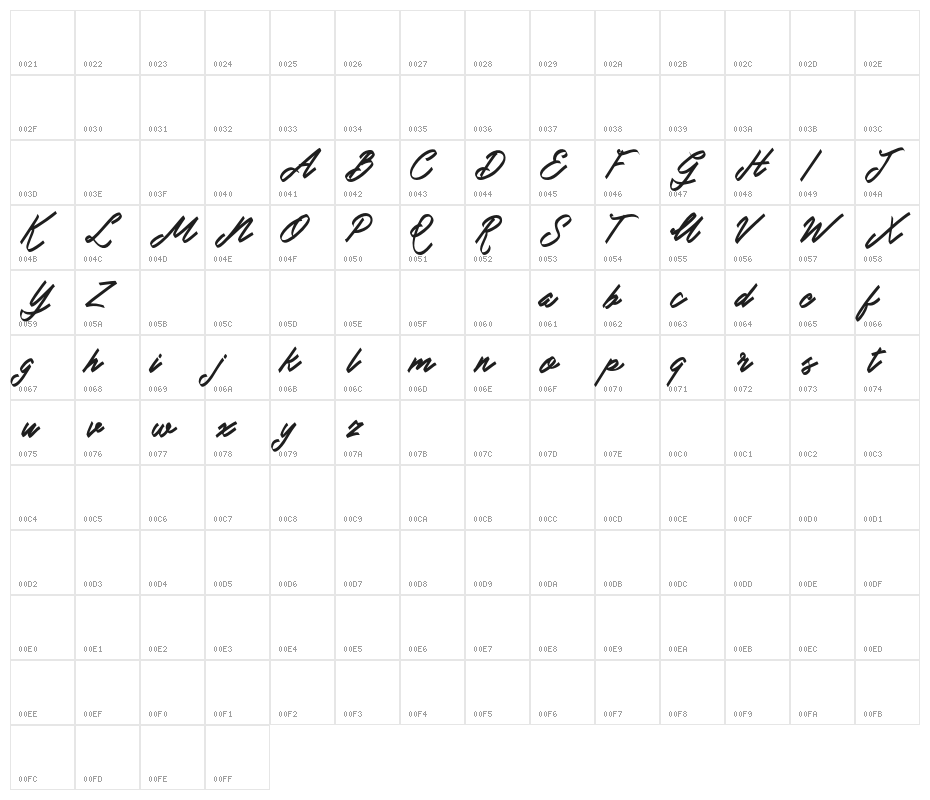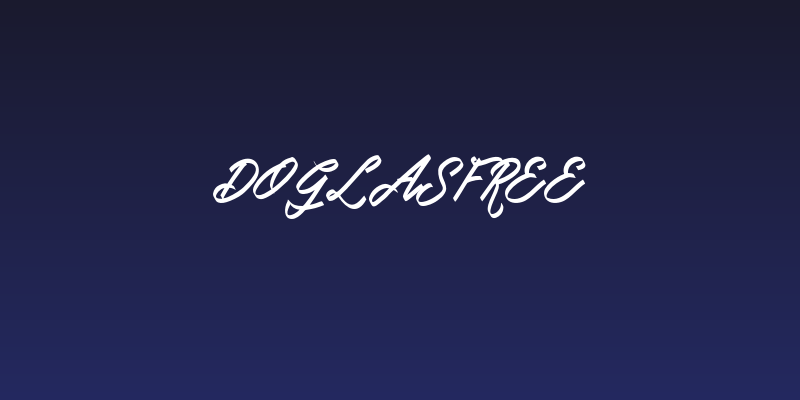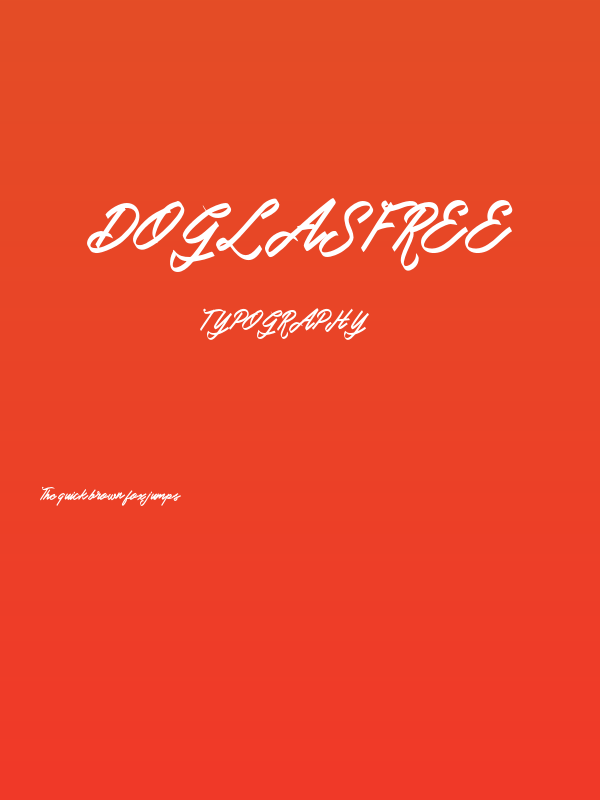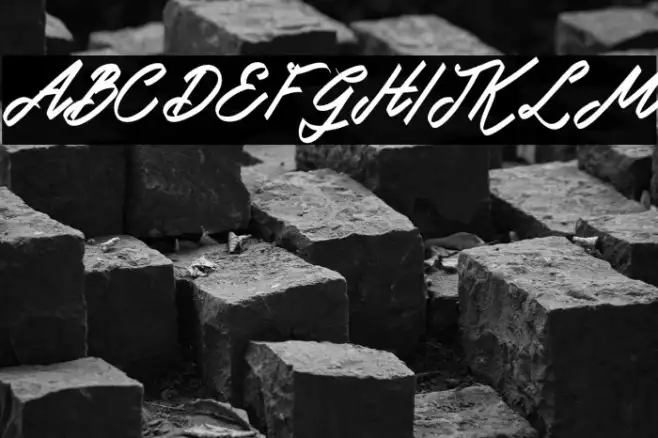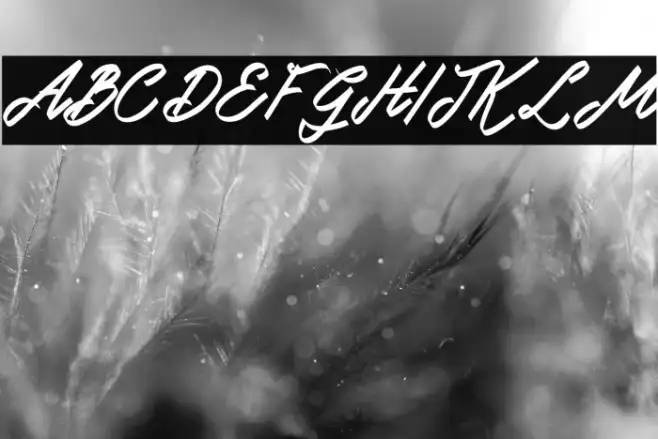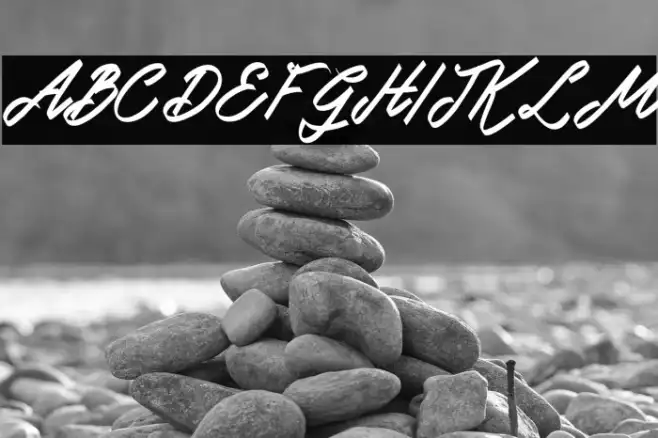
DoglasFREE Font
DoglasFREE Description
This font features a dynamic and flowing script style, characterized by its elegant and cursive letterforms. The strokes are smooth and connected, giving it a handwritten appearance that is both stylish and sophisticated. The uppercase letters are slightly more elaborate, with sweeping curves and loops, while the lowercase letters maintain a consistent flow with subtle variations. The numbers and special characters are designed to match the overall aesthetic, ensuring a cohesive look. This font exudes a sense of creativity and personal touch, making it suitable for projects that require a personal or artistic flair.